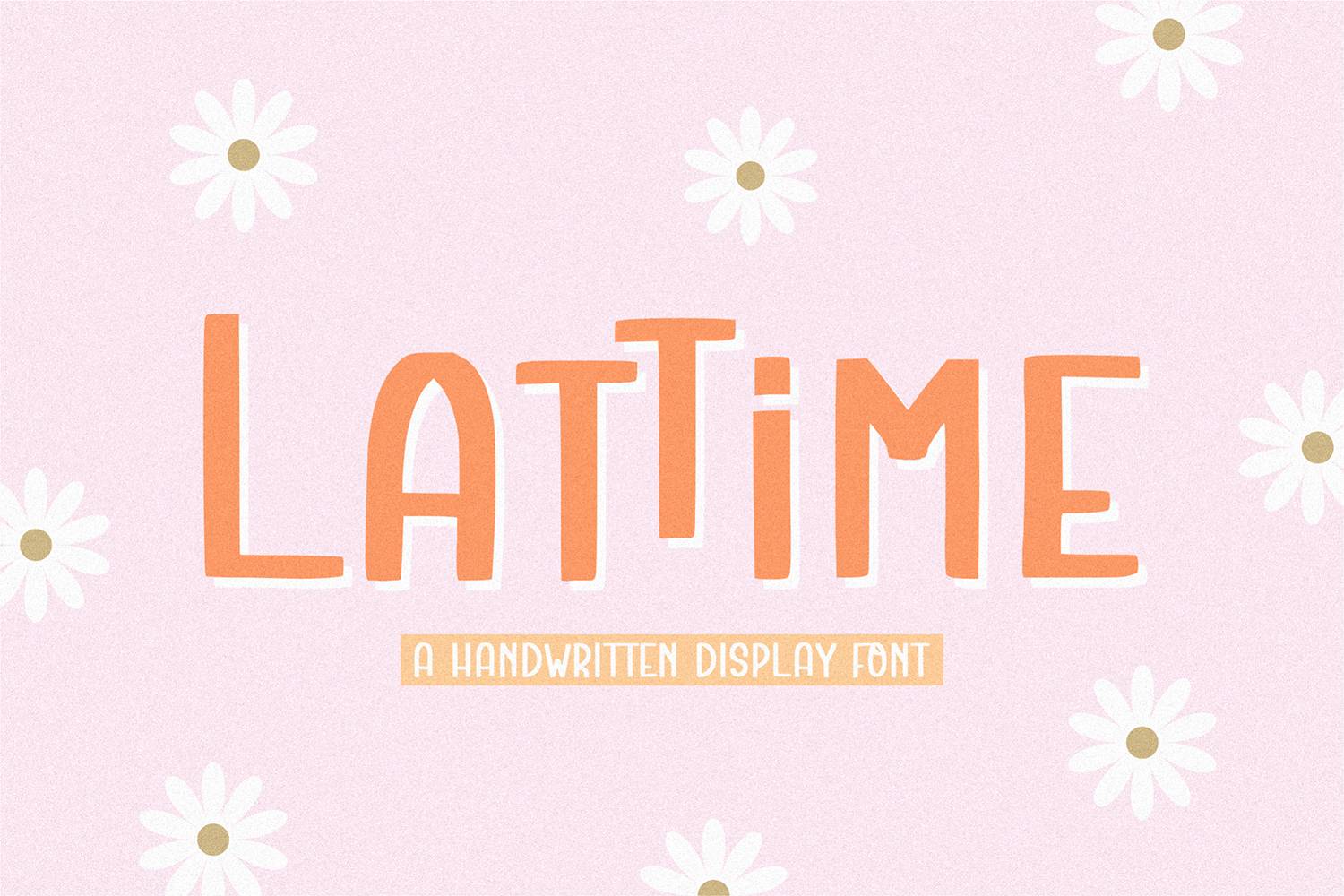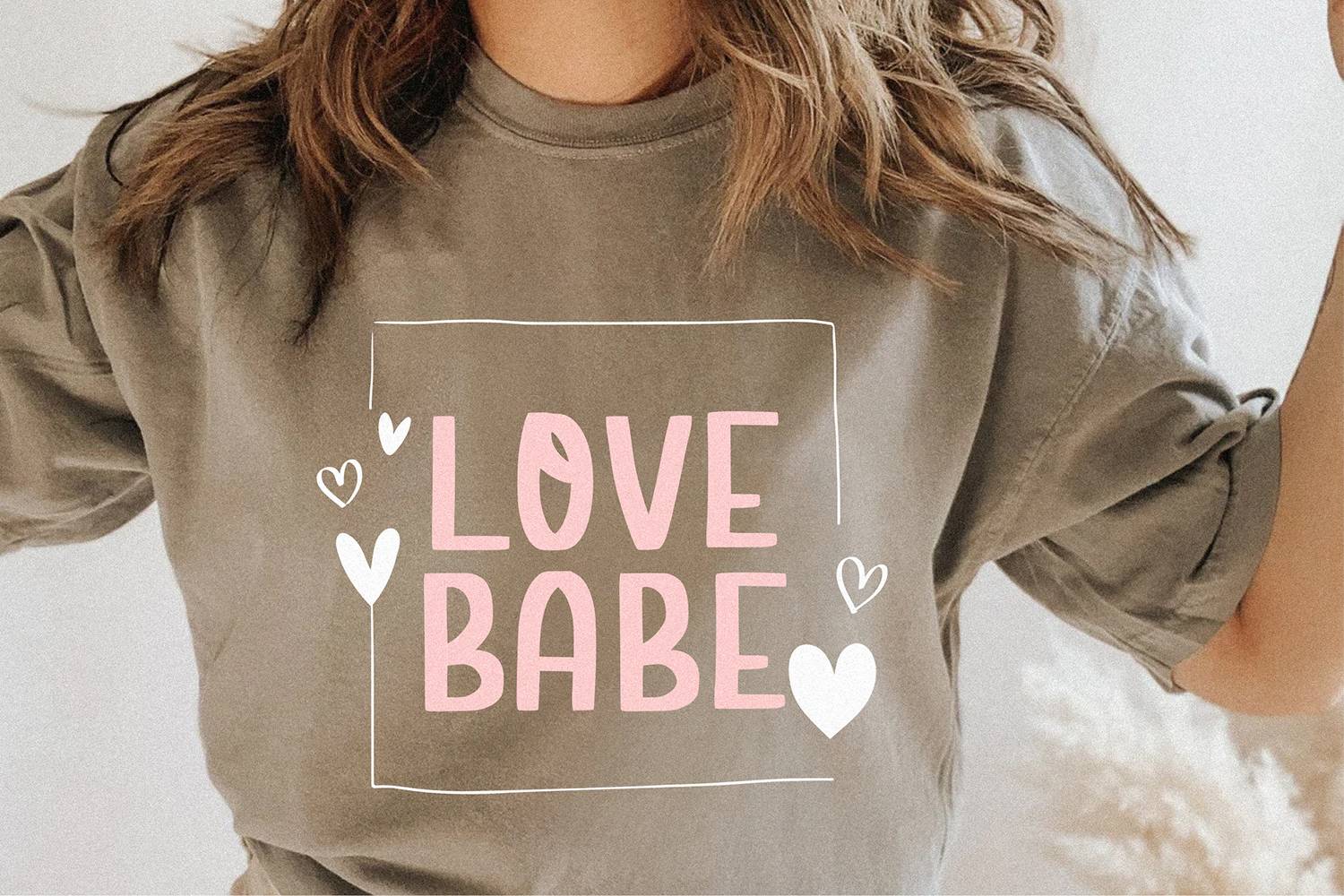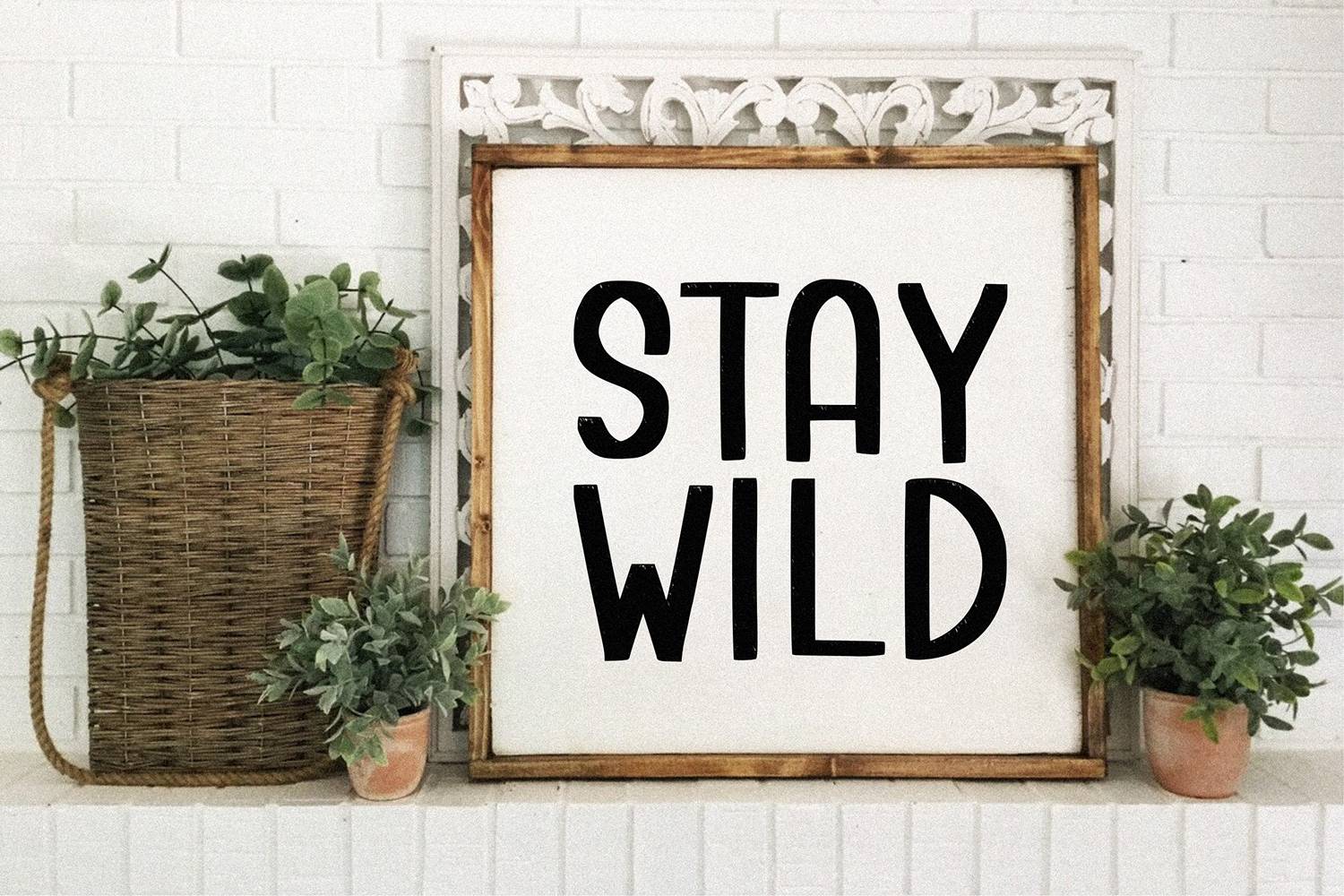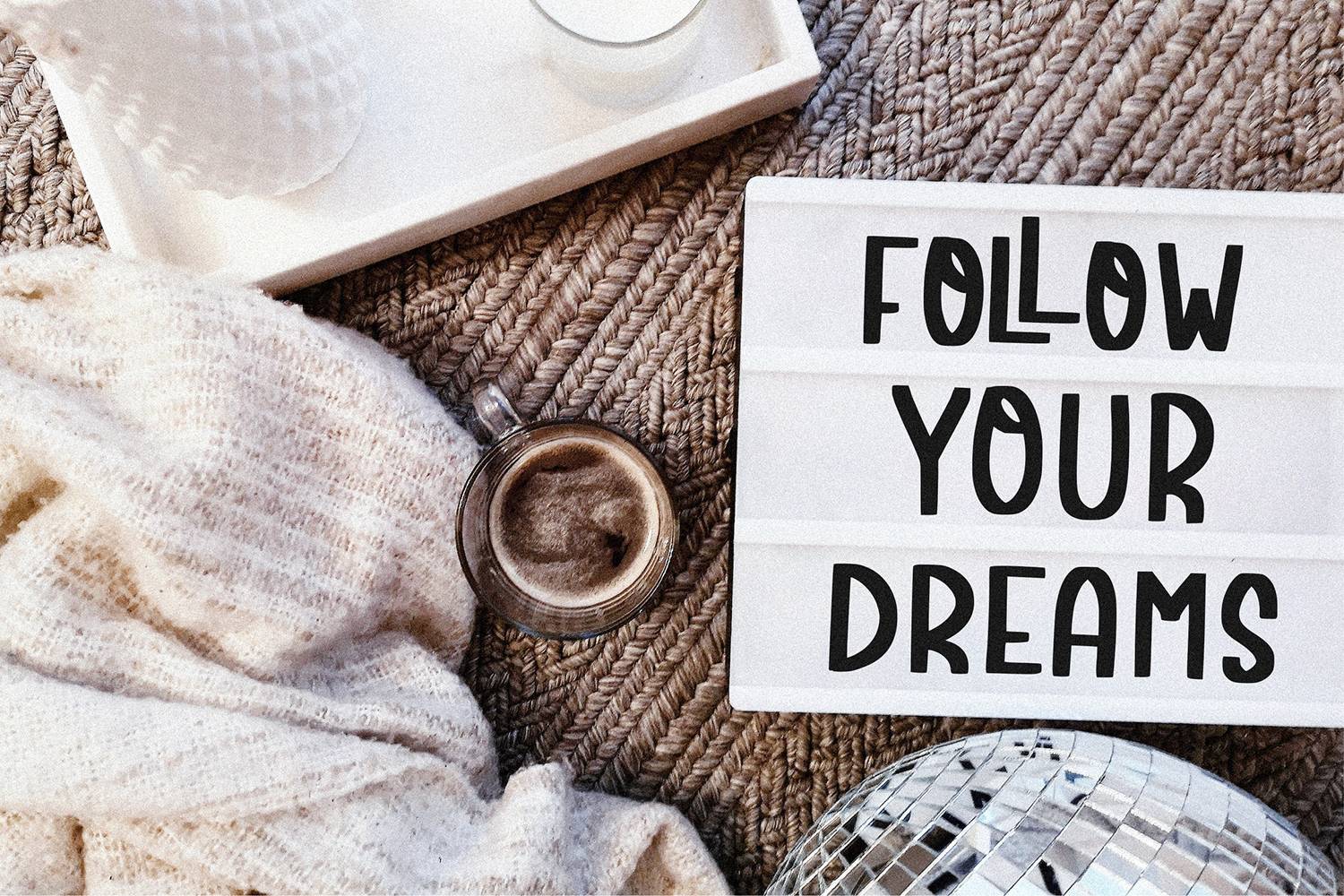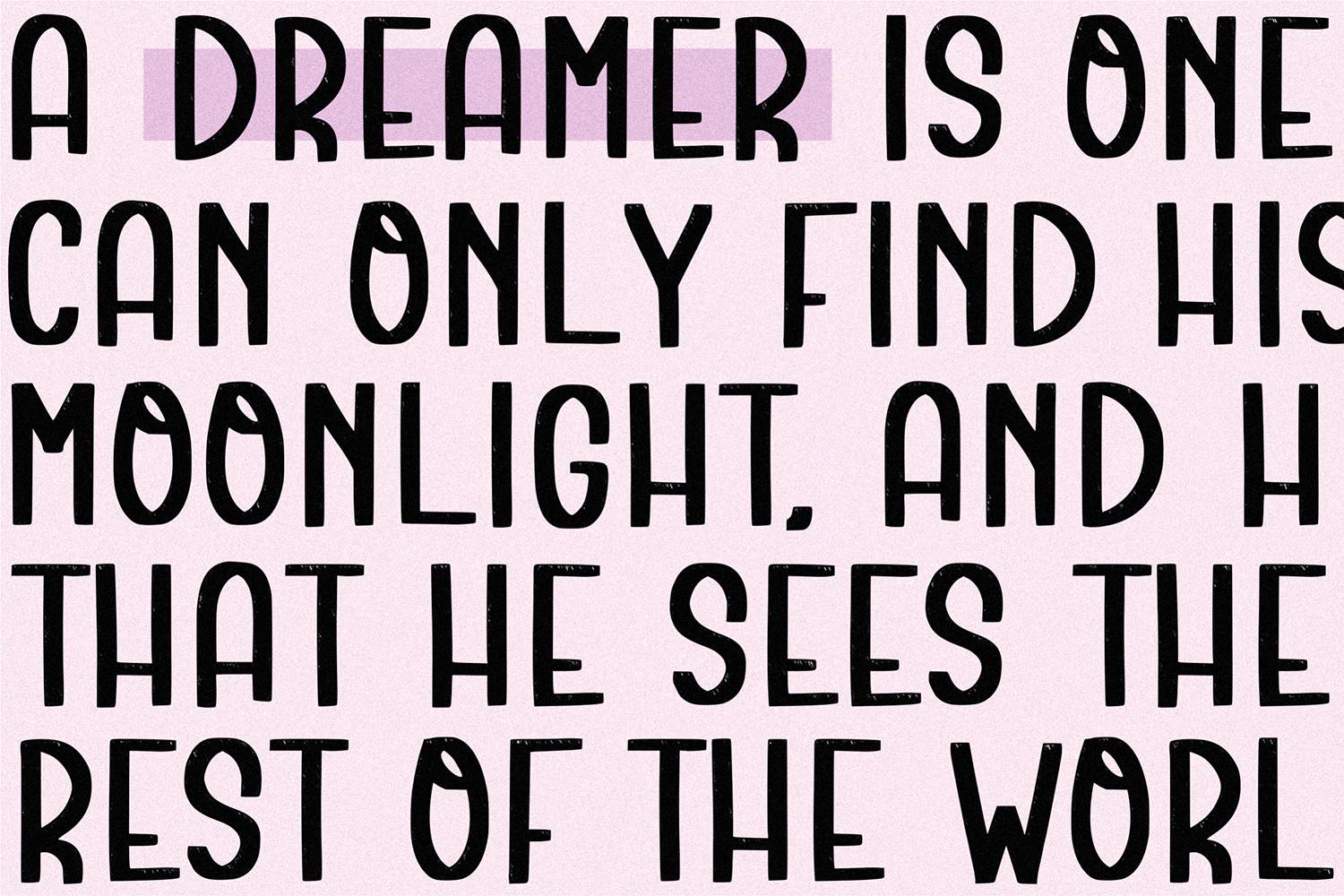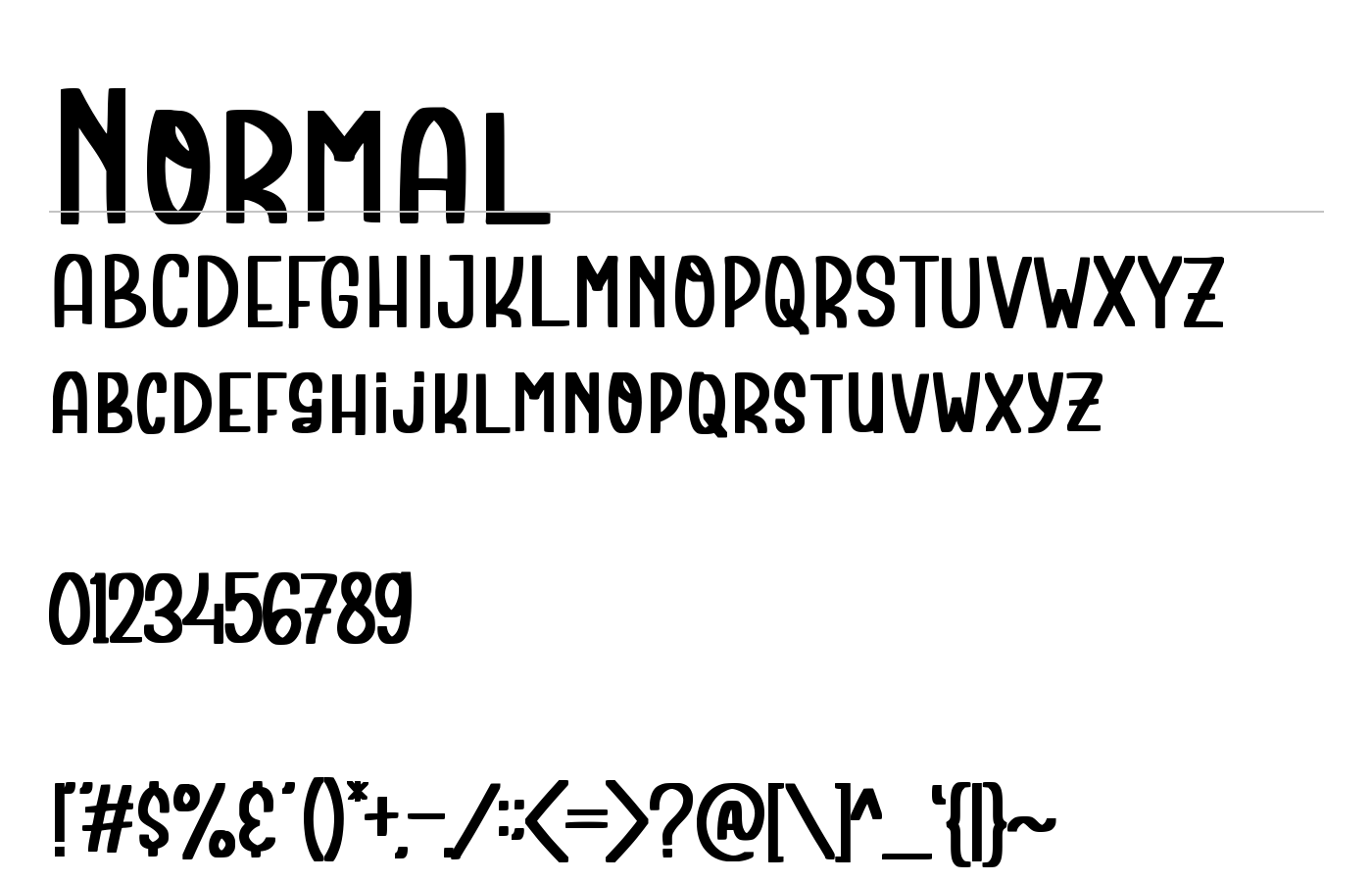
Lattime is a quirky sans serif font with a condensed, upright style that brings a playful and modern vibe. Its uneven stroke widths and slightly irregular letter shapes create a hand-crafted feel, making it perfect for informal branding, creative projects, or eye-catching headlines where personality matters. This font stands out with its unique charm while maintaining good readability for both display and short text uses.
Lattime Font
About Lattime Font